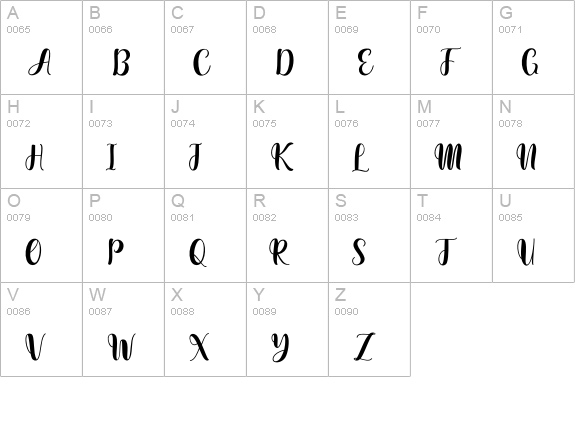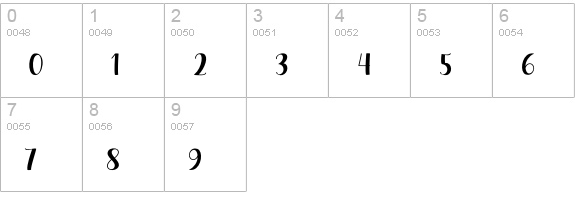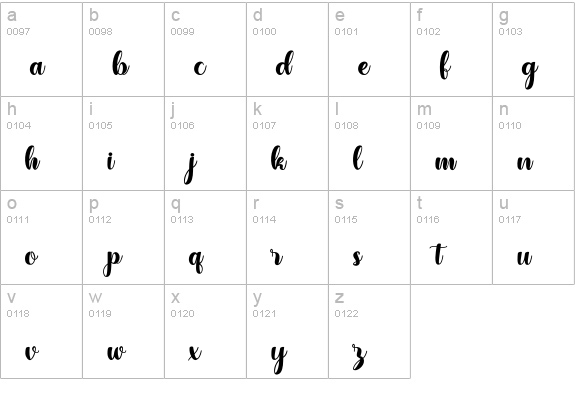
Fragile Romantics is a free for personal use font in the Script category, designed by jackgridden. It has been downloaded 63 times and is available for Windows, Mac and Linux.
Fragile Romantics font exudes an ethereal charm, capturing the delicate essence of romance and beauty. Its whimsical and graceful strokes evoke a sense of nostalgia and dreaminess, making it the perfect choice for projects that require a touch of elegance and sophistication. This font seamlessly blends modern design with a vintage flair, creating a unique and enchanting aesthetic that is sure to captivate any audience.